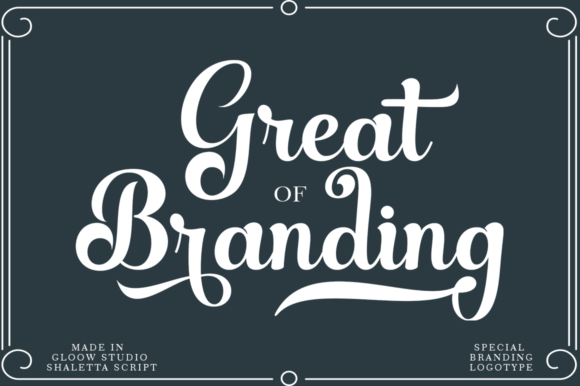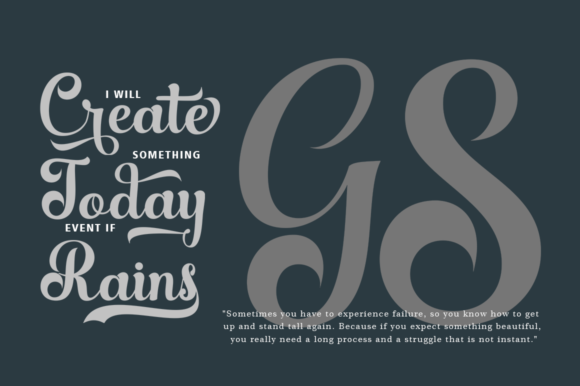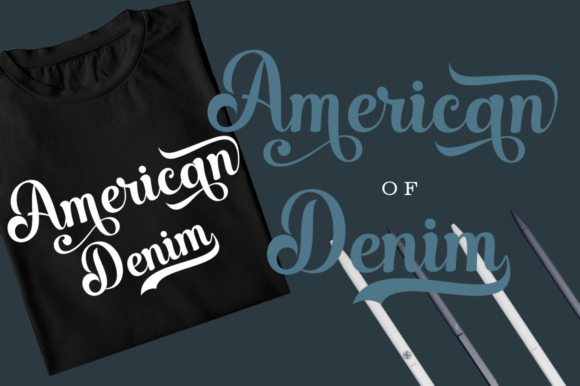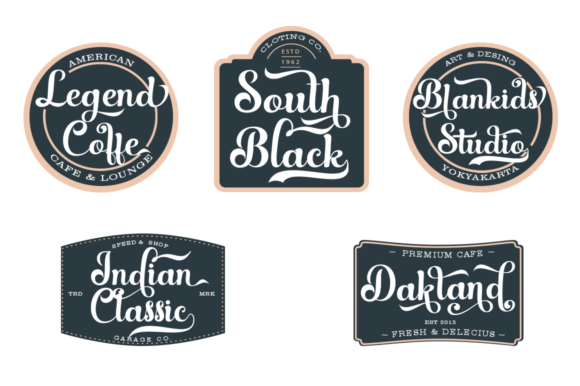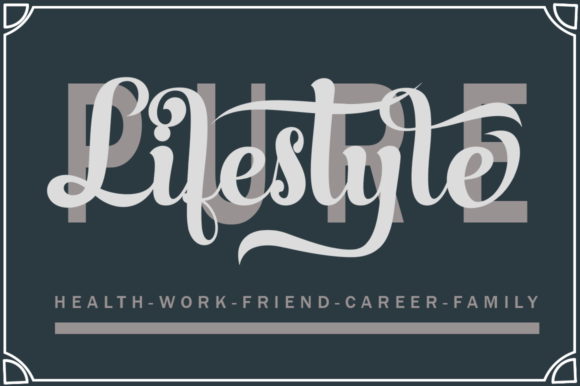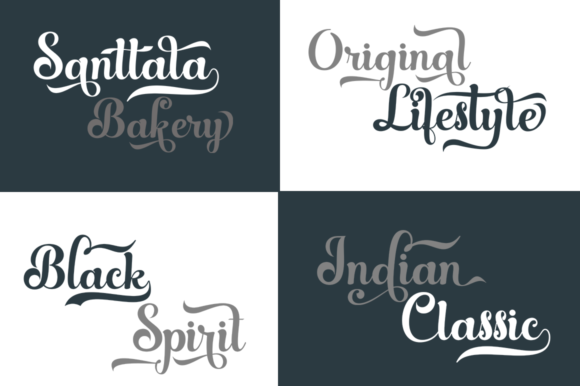
Introduction to Shaletta Font
As a designer, there’s nothing quite like the thrill of bringing a creative project to life. You’ve poured your heart and soul into every detail, from the color palette to the typography. And that’s when it hits you – the perfect font to elevate your design to the next level. For me, that font is Shaletta Font, a stunning script font that adds a touch of elegance to any design.
With its high-quality design and transparent background, Shaletta Font is the perfect resource for designers looking to add a personal touch to their work. Whether you’re creating a flyer, poster, or print, this font is sure to impress. And the best part? It’s available for free download, making it an accessible design resource for creatives of all levels.
What sets Shaletta Font apart is its PUA encoding, which allows you to access all glyphs and swashes with ease. This means you can customize your design to perfection, without the hassle of complicated coding. Whether you’re a seasoned pro or just starting out, Shaletta Font is a valuable addition to any designer’s toolkit.
Key Features of Shaletta Font
- High-quality design: The Shaletta Font is a premium font designed for creative projects, offering a unique and stylish look.
- Transparent background: The font’s transparent background allows for seamless integration with various design elements and backgrounds.
- High-resolution design: The font is designed at a high resolution (300 DPI), making it suitable for print and digital applications.
- Unique characteristics: The Shaletta Font features a distinctive, hand-drawn design with intricate details and subtle flair, setting it apart from other fonts.
- Perfect for creative projects: The font’s elegant and sophisticated design makes it ideal for use in branding, advertising, and other creative projects.
Honest Review: Shaletta Font
I recently stumbled upon the Shaletta Font, a design resource that caught my attention due to its free download and high-quality design. As a designer, I appreciate fonts that offer a transparent background, making them perfect for creative projects.
Here are some aspects of the Shaletta Font that work well: ✨
- Unique and modern design style that can add a touch of elegance to any project
- High-quality design that can be used for a variety of creative projects, including logos, typography, and more
However, there are some limitations to the Shaletta Font: ⚠️
- Only available in a single weight, which may not be ideal for projects that require multiple font weights
- No bold or italic versions available, which can limit its versatility
Overall, the Shaletta Font is a great addition to any designer’s toolkit. While it has some limitations, its unique design style and free download make it an excellent option for creative projects. I would recommend giving it a try to see if it fits your design needs.
Tips for Getting the Most Out of Shaletta Font
To get the most out of Shaletta Font, use it in combination with other design elements to create a visually appealing design. Experiment with different font styles and sizes to add depth and interest to your design.
Shaletta Font is commonly used in creative projects such as logo design, branding, and typography. Its high-quality design and transparent background make it ideal for creating designs with a high level of detail.